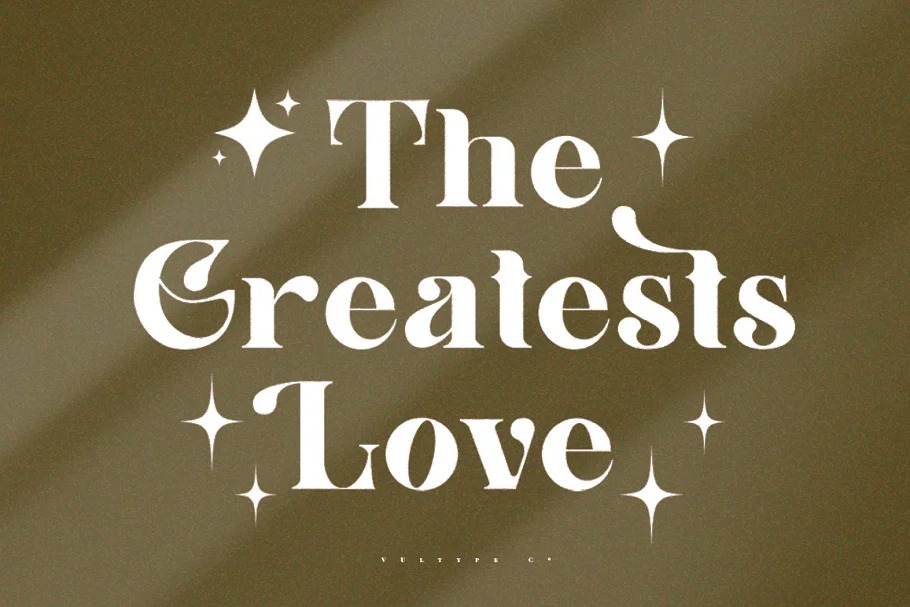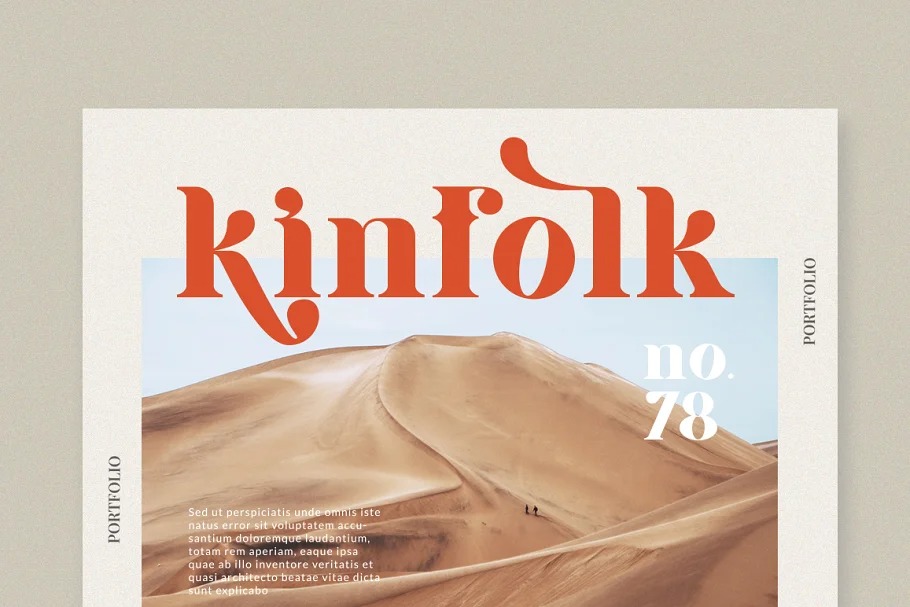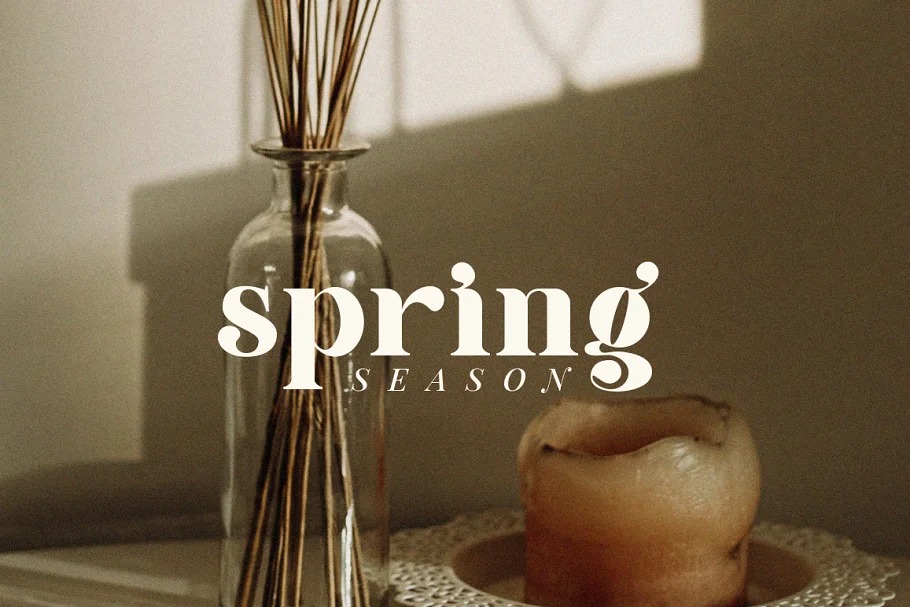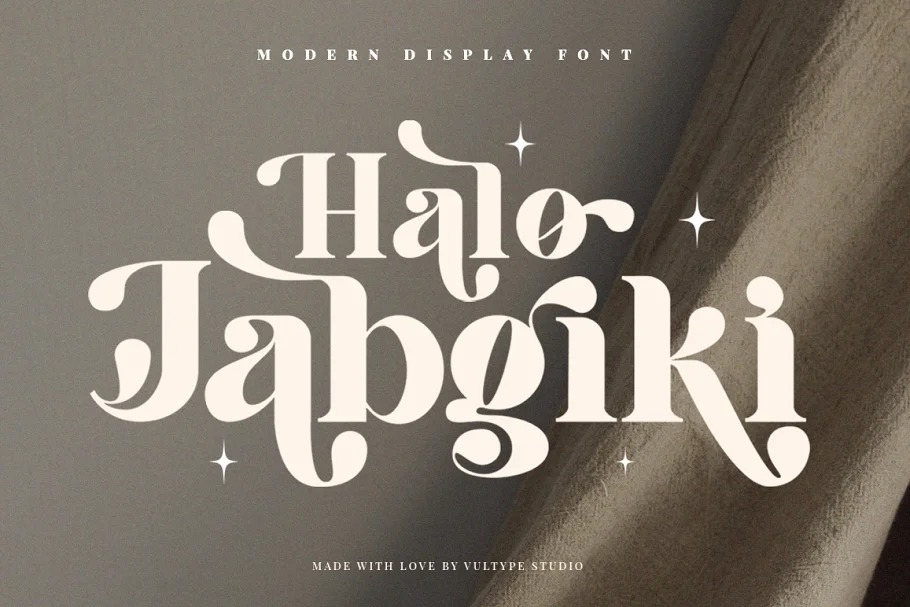
Jabgiki Font
Jabgiki Serif Font
This is an elegant, simple and clean typeface manufactured by Vultype Co. Great for headlines, this font is actually a vintage font but it’s also perfect for a slightly modern, formal design. Comes with alternatives and ligatures, helps to create stunning logos, quotes, posts, blog posts. branding projects, magazine imagery, wedding invitations, and much more.